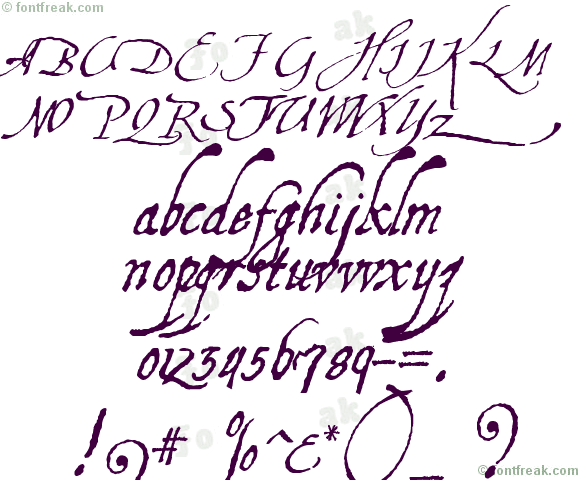
AquilineTwo
About AquilineTwo
AquilineTwo is a stunning script font designed by Manfred Klein, showcasing the elegance and fluidity that characterizes high-quality handwritten typefaces. This font falls under the decorative category, making it perfect for projects that require a touch of sophistication and personality. The visual characteristics of AquilineTwo include a medium stroke weight that balances delicacy with readability, along with graceful curves and flowing lines that create an inviting aesthetic. The contrast in the letterforms adds visual interest, while the well-considered spacing ensures legibility, even in longer texts.
AquilineTwo is ideal for a variety of applications. It shines in wedding invitations, where its romantic flair can set the tone for a special day. Additionally, the font works beautifully for movie posters, lending a dramatic flair that captures attention. Restaurant menus can benefit greatly from its stylish appearance, making dishes feel more enticing. It’s also an excellent choice for branding materials, as small business owners can use it to create memorable logos and promotional content. Content creators will find it particularly appealing for crafting engaging social media graphics that stand out in crowded feeds.
The target audience for AquilineTwo spans graphic designers looking for unique typefaces, small business owners wanting to elevate their branding, and content creators who need an eye-catching font for digital and print projects. This font stands out not just for its aesthetic qualities but also for its versatility across different media. With the AquilineTwo font free download, users can incorporate this exquisite typeface into their projects without any cost, enhancing their creative work with a touch of elegance and flair.